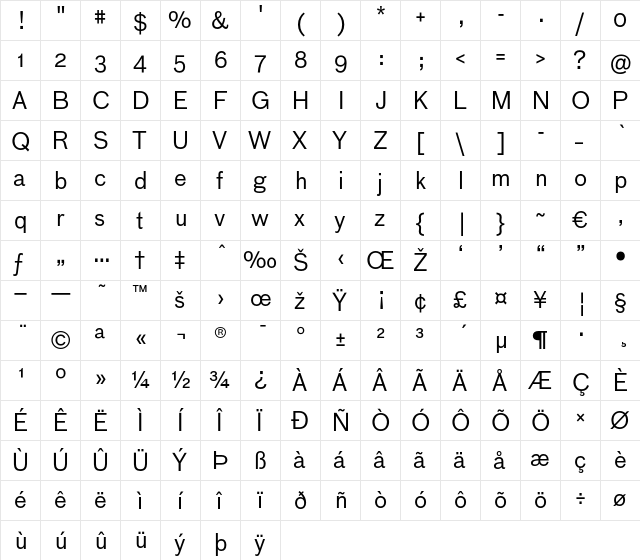
Bau-Regular Regular
Design Context for Bau-Regular Typeface
Bau-Regular offers clean, dependable letterforms without strong stylistic allegiance, making it a practical choice for designers who need flexibility.
Pro Tip: Pair Bau-Regular with a font of contrasting weight or personality to build a more expressive typographic hierarchy.